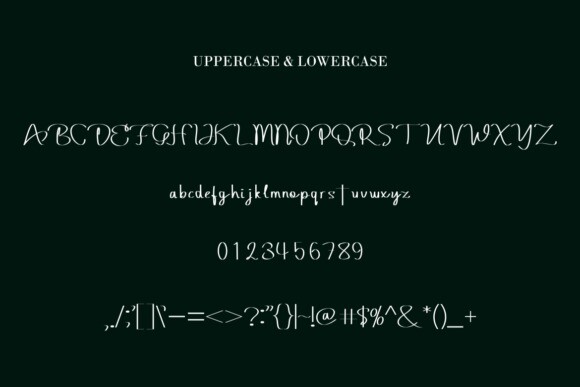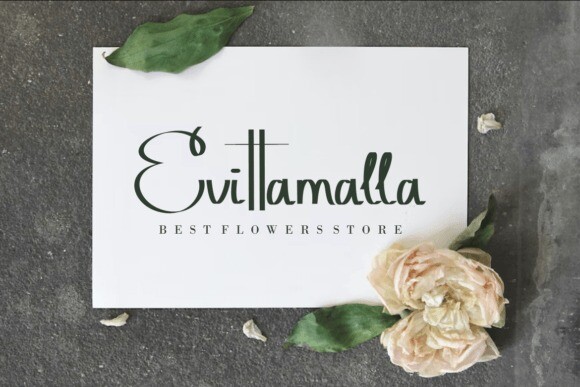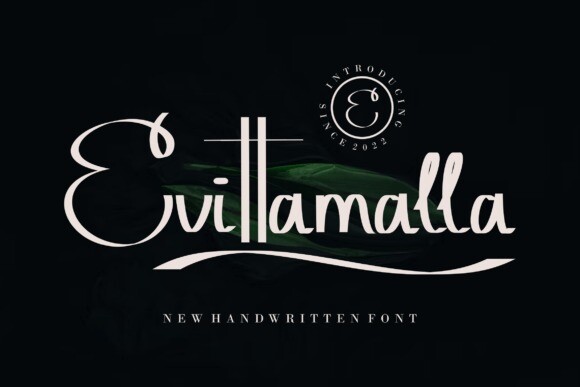
Evittamalla Font
Evittamalla Font is a stylish and incredibly elegant script font. It looks stunning on wedding invitations, thank you cards, quotes, greeting cards, logos, business cards and every other design which needs a handwritten touch.